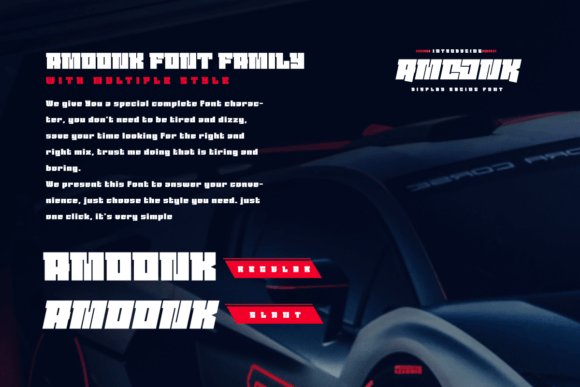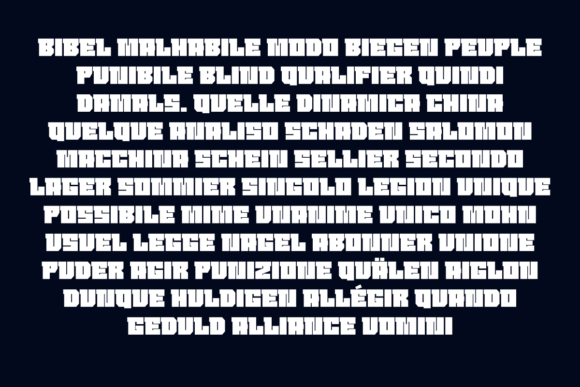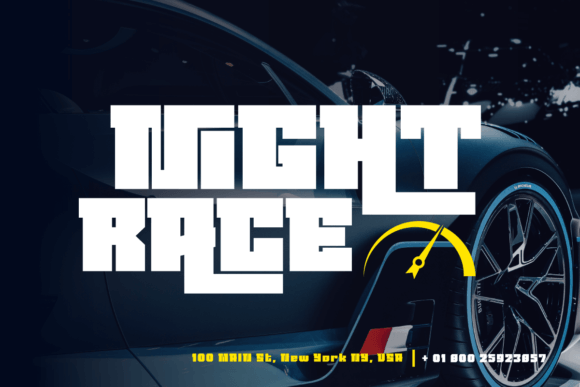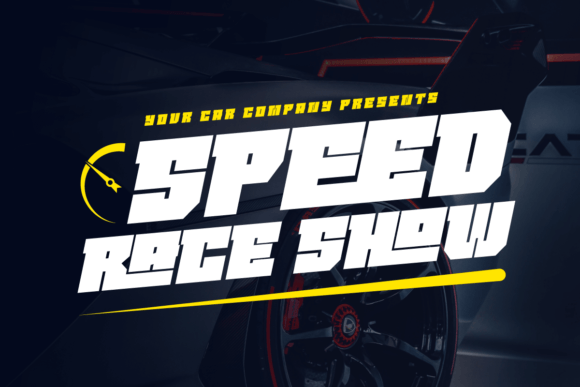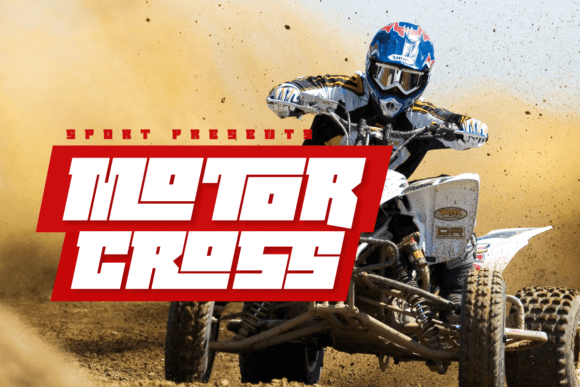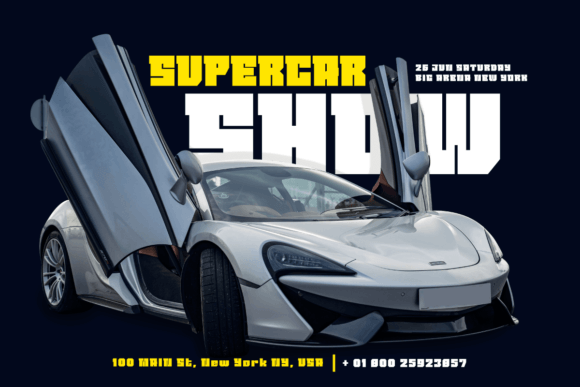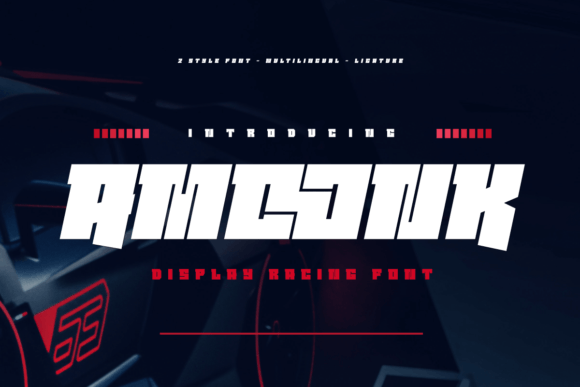
Amoonk Font: Elevate Your Designs with a Stylish and Sporty Typeface
In the world of design, typography plays a crucial role in conveying the message and tone of a project. A well-chosen font can make all the difference in capturing the audience’s attention and setting your work apart from the rest. If you’re looking for a stylish and sporty typeface to add a bold touch to your designs, look no further than the Amoonk Font. In this article, we’ll explore the features and benefits of this exceptional font and why it’s a must-have for designers and crafters.
The Amoonk Racing Font: A Bold and Authoritative Typeface
The Amoonk Racing Font is a stylish typeface designed with meticulous attention to detail for each letter, giving your project an authoritative, bold, and sporty look. This font is perfect for headlines or posters, allowing your designs to stand out from the crowd. Whether you’re working on a sports-related project, a fashion brand, or simply want to add a touch of excitement to your design, the Amoonk Font is an excellent choice.
Key Features of the Amoonk Font
So, what makes the Amoonk Font so special? Here are some of its key features:
- PUA Encoded: The Amoonk Font is PUA (Private Use Area) encoded, which means you can access all of the glyphs and swashes with ease. This encoding allows for greater flexibility and creativity in your designs.
- Stylish and Sporty: The font’s design is characterized by its bold and sporty look, making it perfect for projects that require a dynamic and energetic feel.
- Attention to Detail: Each letter has been carefully crafted with attention to detail, ensuring a high level of legibility and aesthetic appeal.
- Versatile: The Amoonk Font can be used for a wide range of projects, from headlines and posters to logos, branding, and more.
Why Choose the Amoonk Font?
With so many fonts available, why should you choose the Amoonk Font for your project? Here are a few compelling reasons:
- Stand Out from the Crowd: The Amoonk Font’s unique design ensures that your project will stand out from the crowd and grab the audience’s attention.
- Easy to Use: The font’s PUA encoding makes it easy to access all of the glyphs and swashes, allowing you to focus on your design rather than struggling with complicated typography.
- High-Quality Design: The Amoonk Font is designed to a high standard, ensuring a professional and polished look for your project.
How to Use the Amoonk Font
Using the Amoonk Font is straightforward and easy. Here are a few tips to get you started:
- Headlines and Posters: Use the Amoonk Font for headlines and posters to add a bold and sporty touch to your design.
- Branding and Logo Design: The font’s versatility makes it suitable for branding and logo design, adding a dynamic and energetic feel to your project.
- Experiment with Glyphs and Swashes: Take advantage of the font’s PUA encoding to experiment with different glyphs and swashes, adding a unique touch to your design.
In conclusion, the Amoonk Font is an exceptional typeface that offers a stylish and sporty look for your designs. With its attention to detail, PUA encoding, and versatility, this font is perfect for designers and crafters looking to add a bold touch to their projects. Whether you’re working on a sports-related project or simply want to stand out from the crowd, the Amoonk Font is an excellent choice. So why wait? Start using the Amoonk Font today and elevate your designs to the next level!